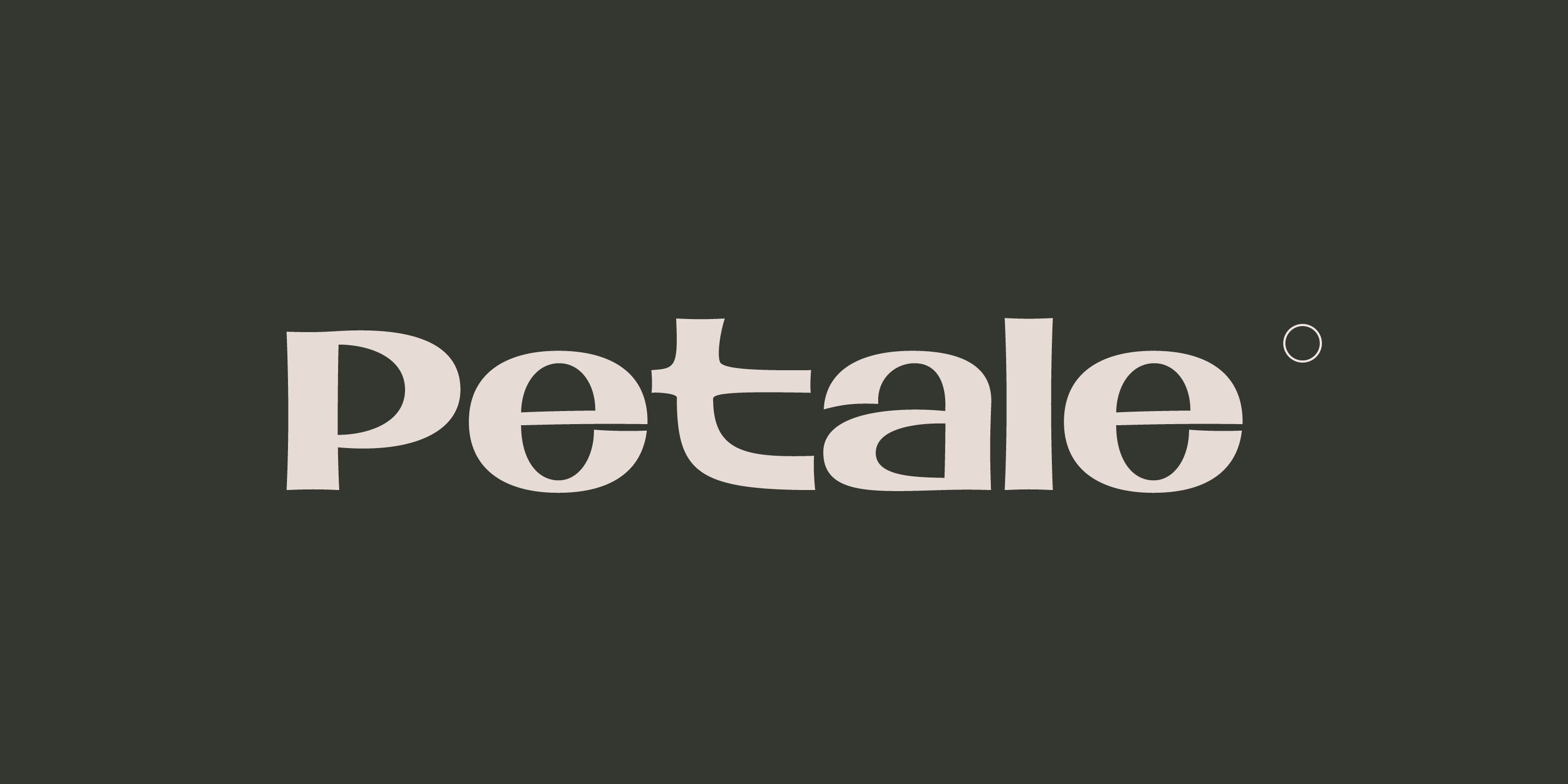
Petale Font Free Download – Embrace delicate elegance with this beautifully crafted floral-inspired typeface. Perfect for romantic branding, wedding designs, and feminine projects, Petale Font adds a soft, artistic touch to any creative work.
Perfect Applications for Petale Font
This charming font excels in:
• Wedding Stationery – Invitations, save-the-dates, and programs
• Feminine Branding – Beauty products, florists, and boutique packaging
• Social Media Graphics – Instagram quotes, Pinterest pins, and Facebook covers
• Book Covers & Titles – Romance novels, poetry collections, and journals
What Makes Petale Font Special?
Petale Font captures hearts with its:
Exquisite floral-inspired letterforms
Delicate swashes and alternates
Perfect balance of elegance and readability
Versatile design that works for both headlines and body text
Petale Font Family Variations
The complete collection includes:
• Petale Regular
• Petale Bold
• Petale Thin
• Petale Ornaments (decorative elements)
• Petale Swashes (stylish alternates)
Each style offers unique possibilities for creating harmonious, eye-catching designs.